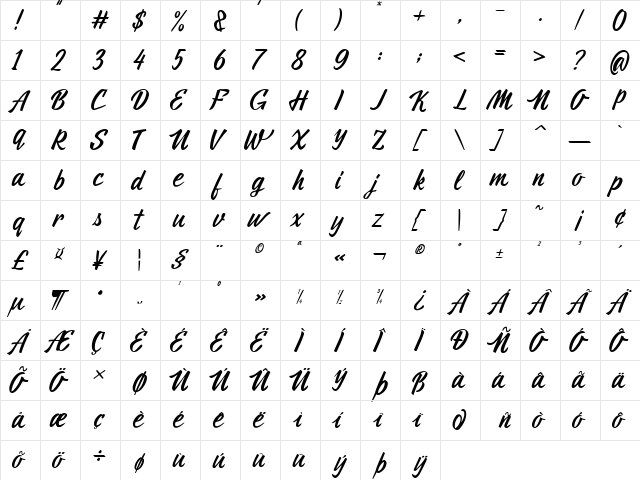
Antique Valley Regular Free Font
Antique Valley Regular
Foundry: BlackFridayFont
Designer: BlackFridayFont
Design Context for Antique Valley
Antique Valley wears its vintage influences proudly, with letterforms that recall mid-century signage, classic packaging, and nostalgia-driven design.
Font Pairing: Combine Antique Valley with a simple slab or neutral sans - period-accurate companions reinforce the vintage feel without competing for attention.
Pro Tip: Lean into Antique Valley's period character by pairing it with aged paper textures, muted colour palettes, and vintage illustration styles.